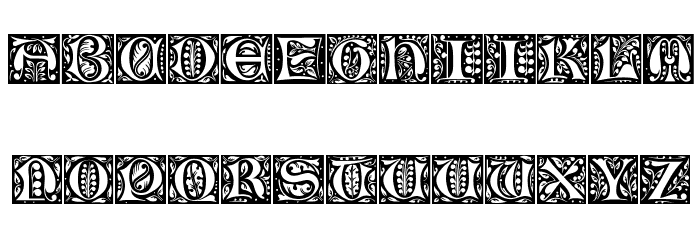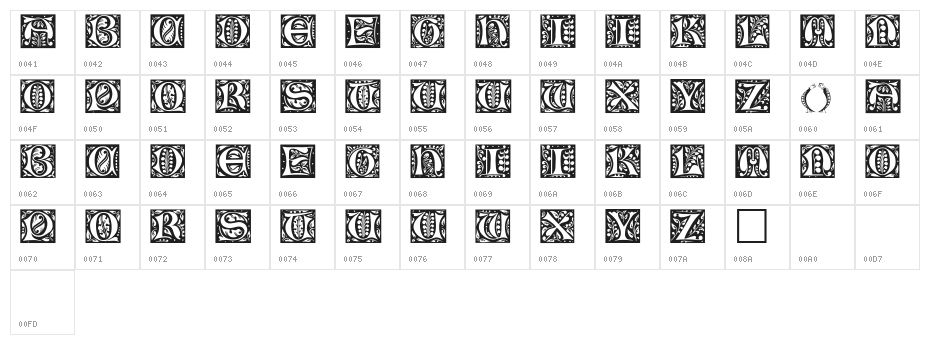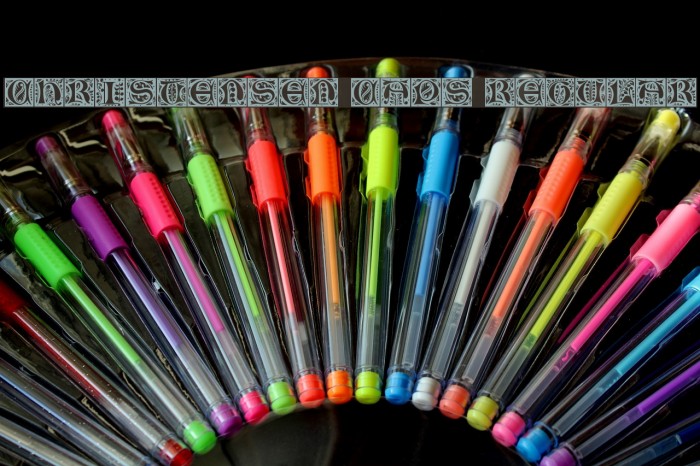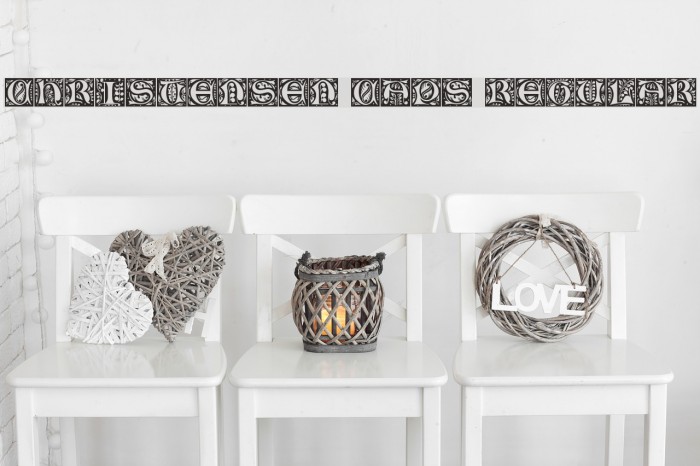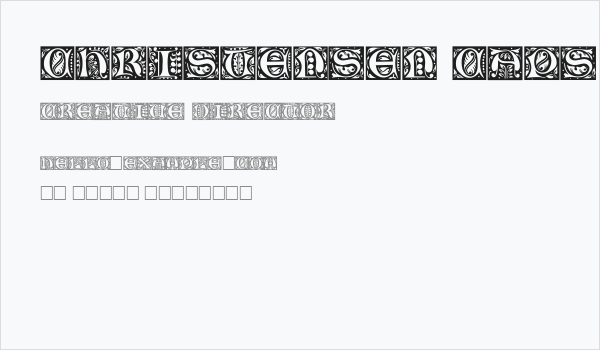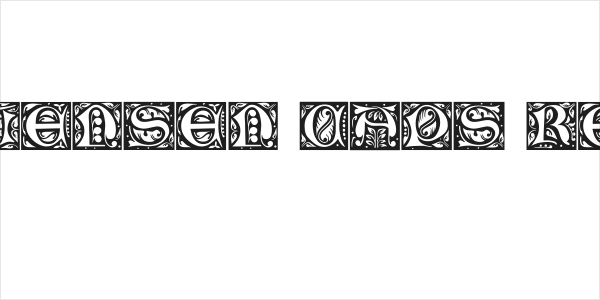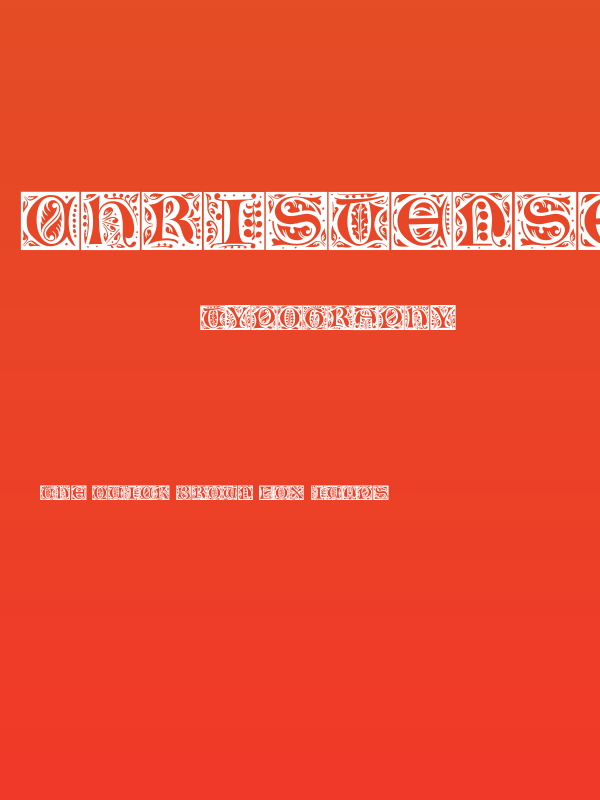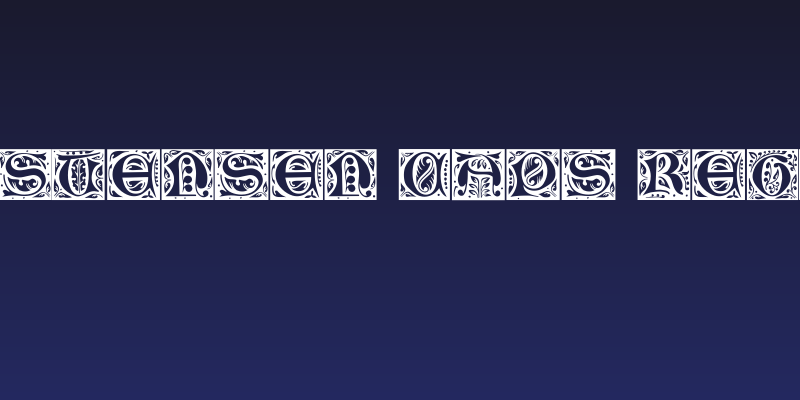
Christensen Caps Regular Font
Christensen Caps Regular Description
This decorative font features ornate, intricate designs within each character, reminiscent of illuminated manuscripts. Each letter is enclosed in a square, with elaborate patterns and embellishments filling the interior space. The style is highly decorative, with a strong emphasis on artistic detail and visual complexity. The characters are bold and striking, making them ideal for attention-grabbing designs. The font's unique style evokes a sense of historical elegance and artistic flair, suitable for projects that require a touch of sophistication and creativity.
| Overall Style | Vintage, Decorative |
| Use Case | Headlines, Logos, Decorative text |
| Proposed Projects | Ideal for wedding invitations, historical-themed posters, artistic book covers, and decorative signage. |